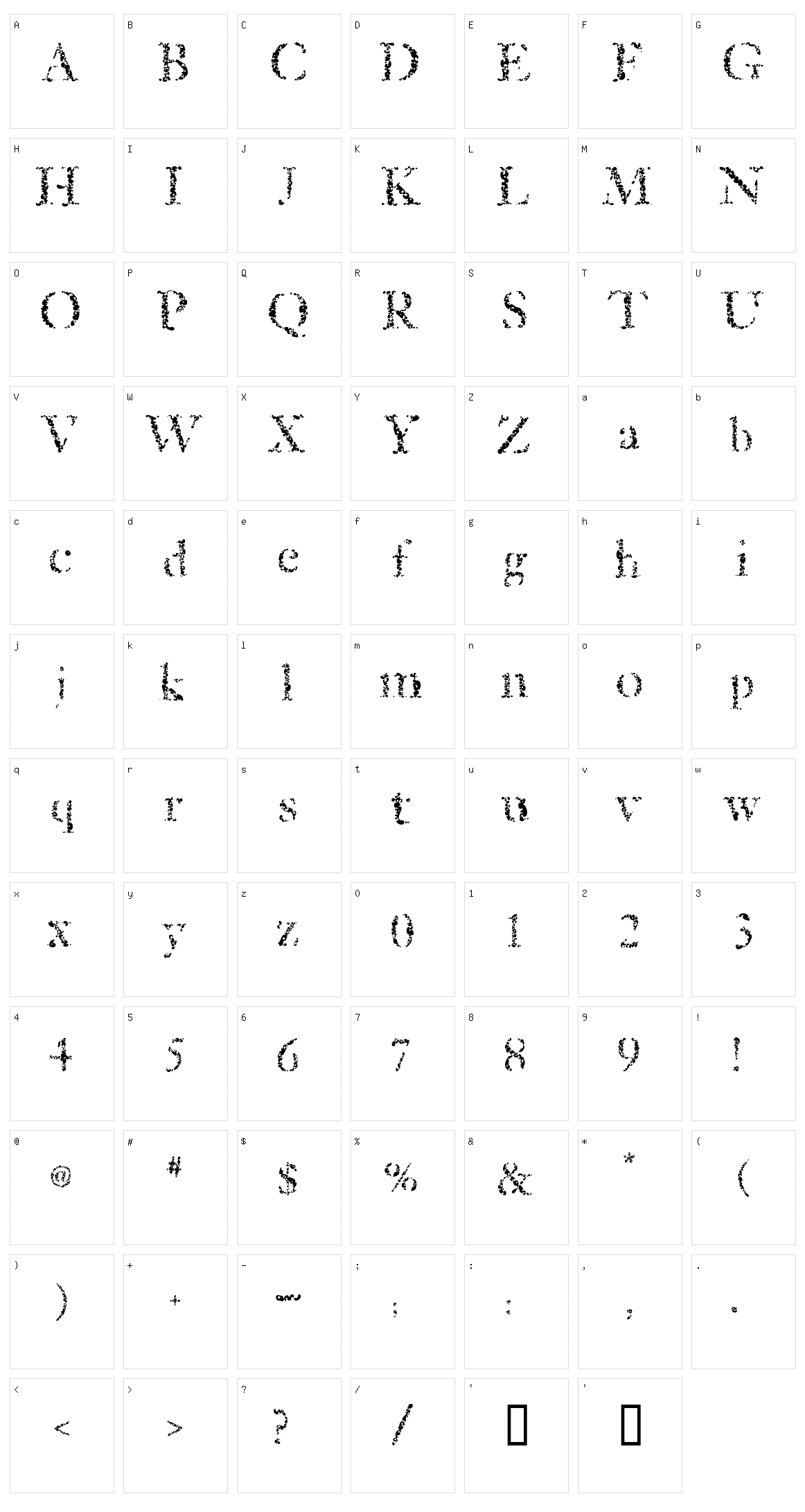
The free font Sponged is carefully designed by Mortal Turtle Foundry, showcasing a thoughtful balance of creativity and usability and falls under the Eroded font style. When you download the ZIP file, it contains only 86.36 KB of font files, making it lightweight and quick to download. Please review the license details below to understand permitted usage and distribution rights. If license information is not available, we recommend using this font for personal projects only or contacting the author directly for commercial usage permissions.